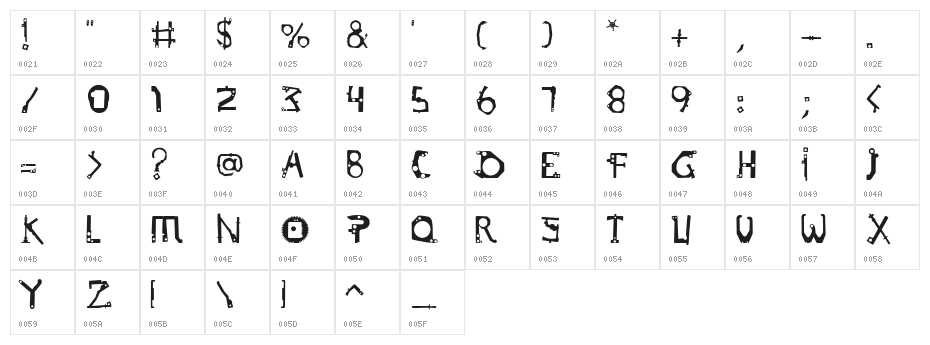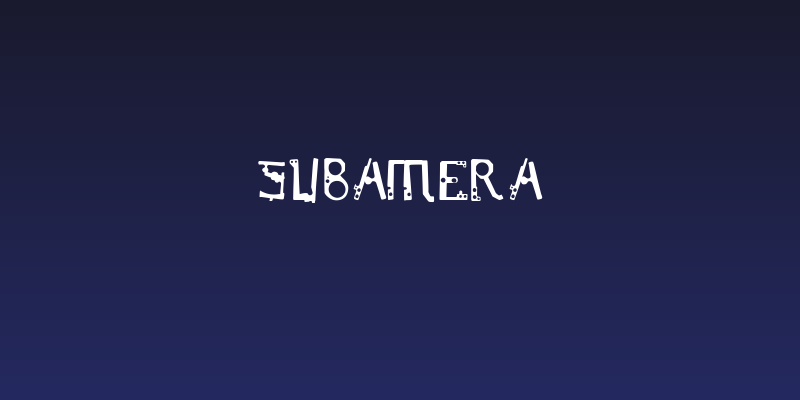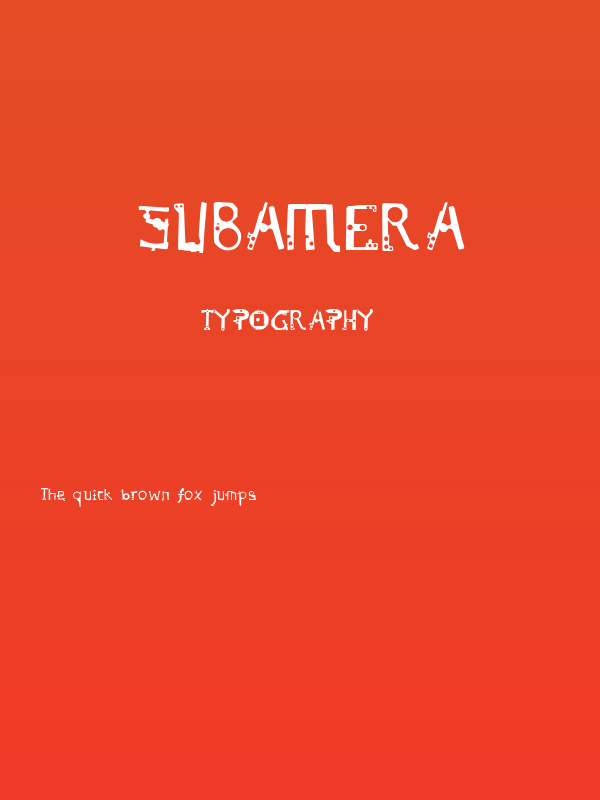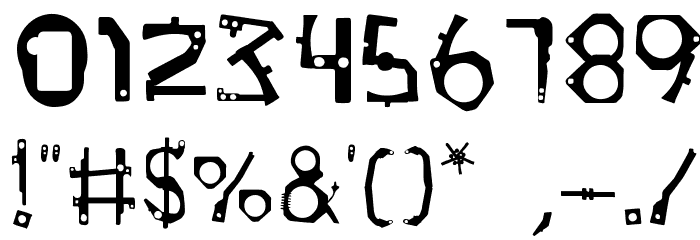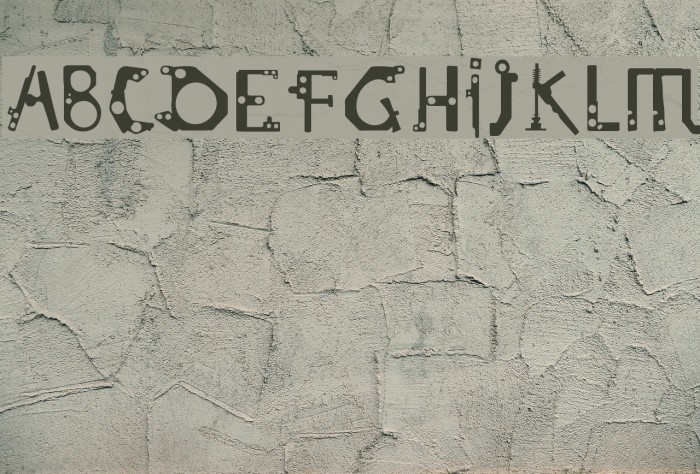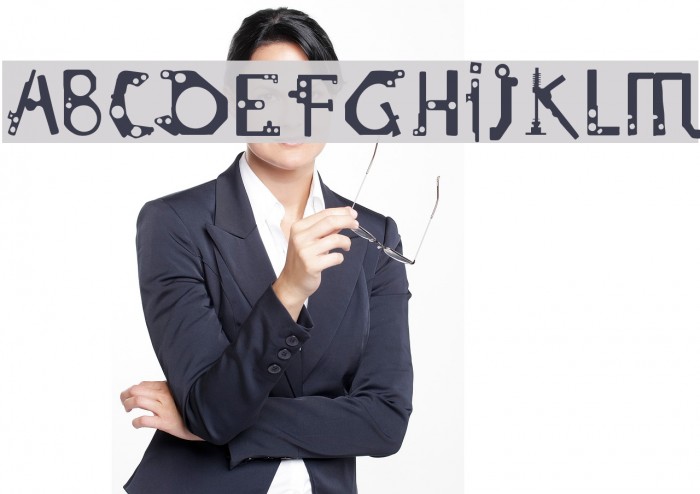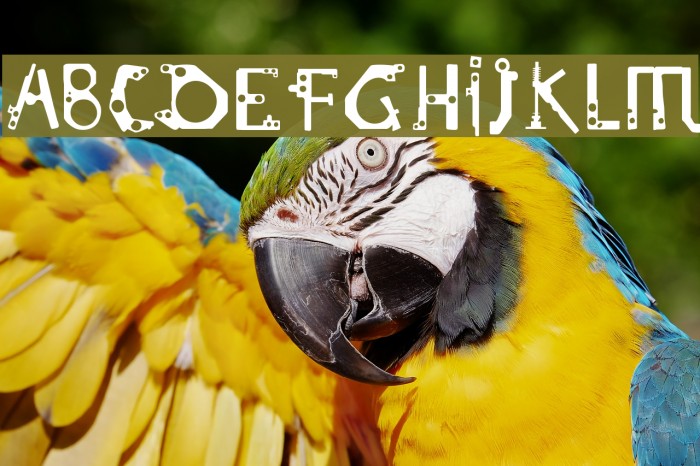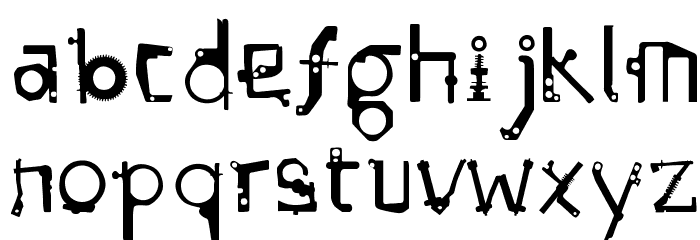
Subamera Font
Subamera Description
This font features a unique and industrial design, incorporating elements that resemble mechanical parts and gears. Each character is constructed with intricate details, such as bolts and screws, giving it a steampunk aesthetic. The uppercase and lowercase letters maintain a consistent style, with sharp angles and distinct geometric shapes. Numbers and special characters follow the same thematic approach, ensuring a cohesive look across all glyphs. This font stands out with its bold and inventive appearance, making it ideal for projects that require a strong visual impact.
| Use Case | Logos, Posters, Creative Artwork |
| Proposed Projects | Ideal for steampunk-themed designs, industrial branding, posters, and creative digital artwork. |